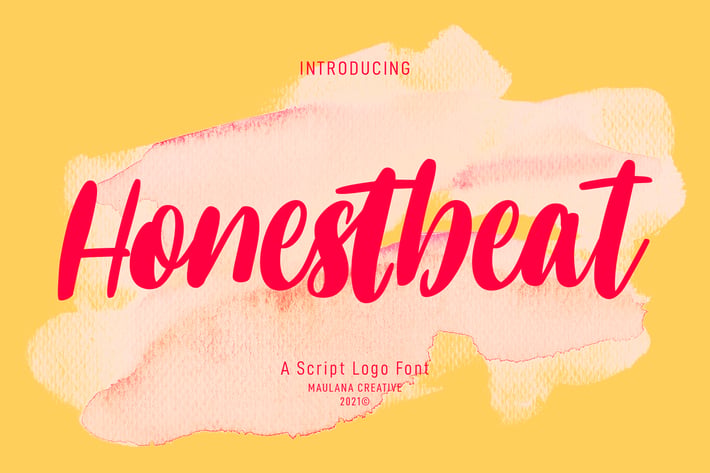
Honestbeat Handwritten Script Font
Honestbeat is a fancy handwritten font. With bold contrast stroke, slant and fun character with a bit of ligatures. To give you an extra creative work. Honestbeat font support multilingual more than 100+ language. This font is good for logo design, Social media, Movie Titles, Books Titles, a short text even a long text letter and good for your secondary text font with sans or serif. Make a stunning work with Honestbeat font.